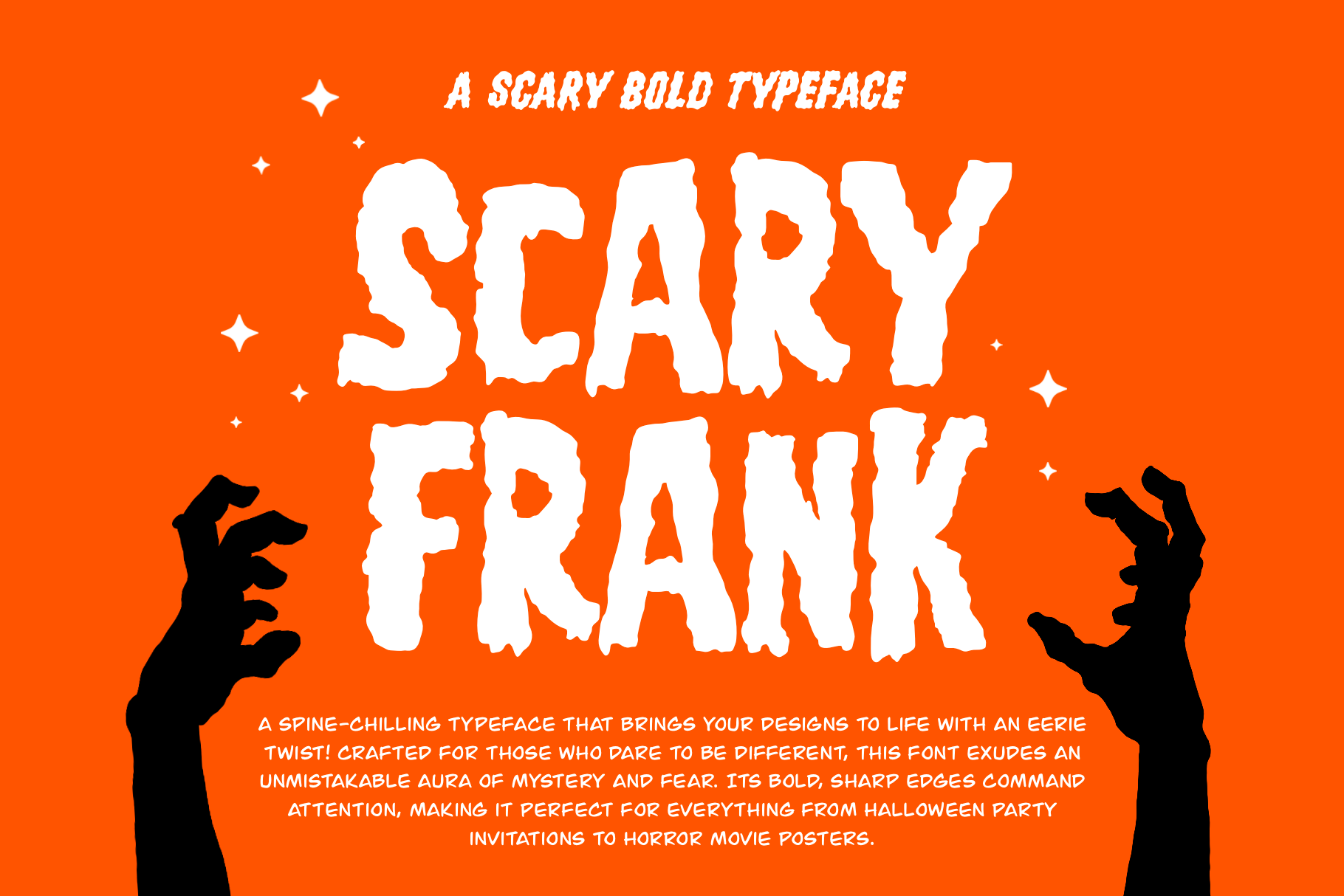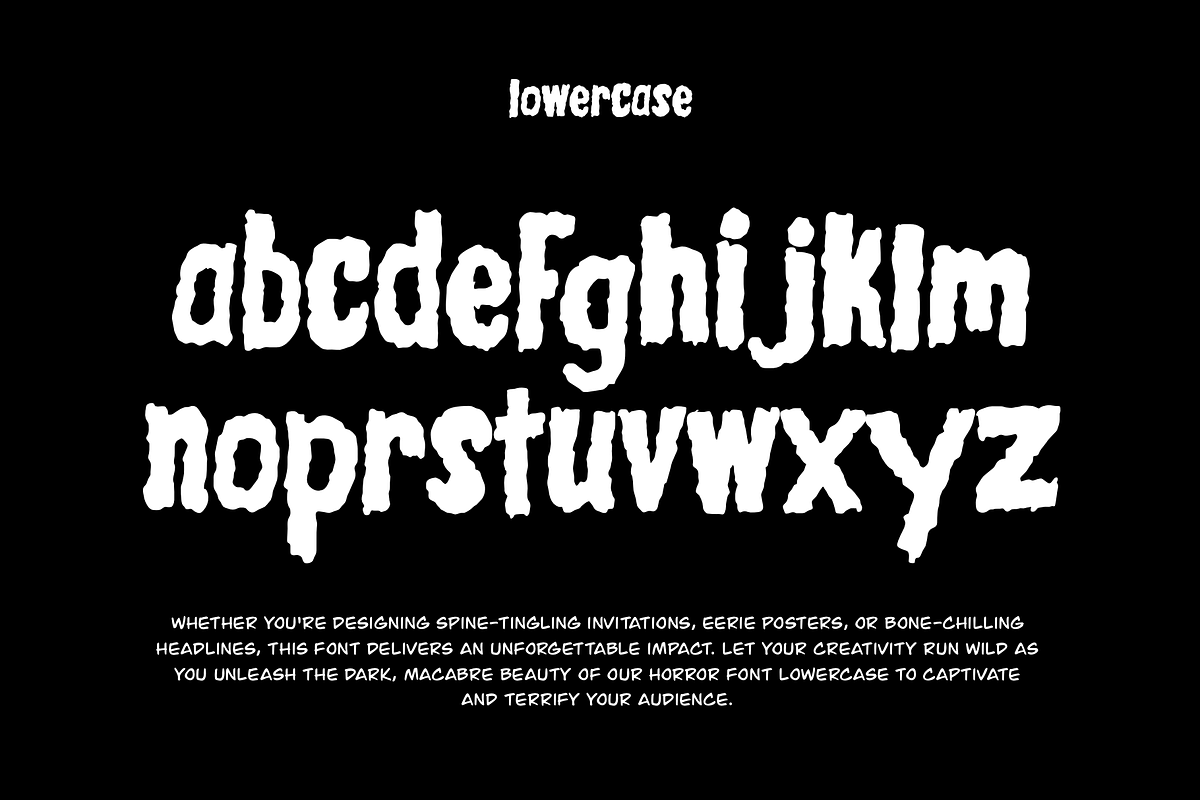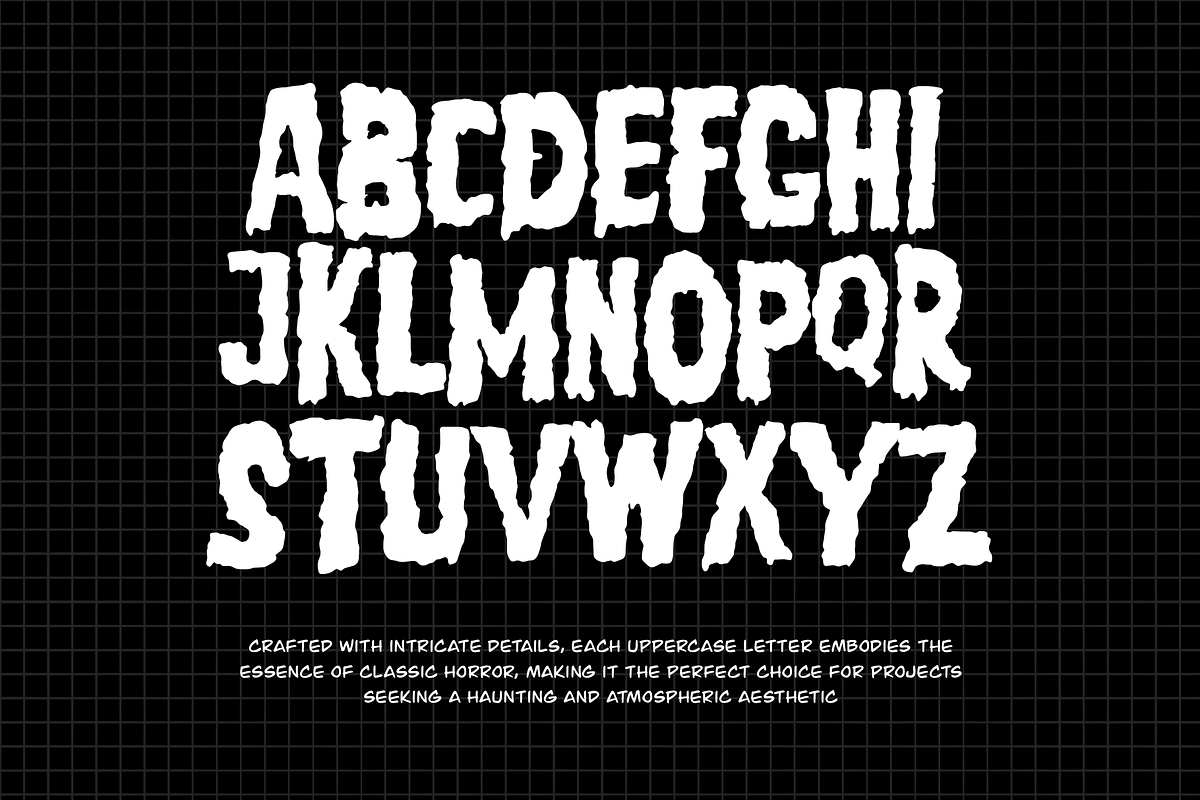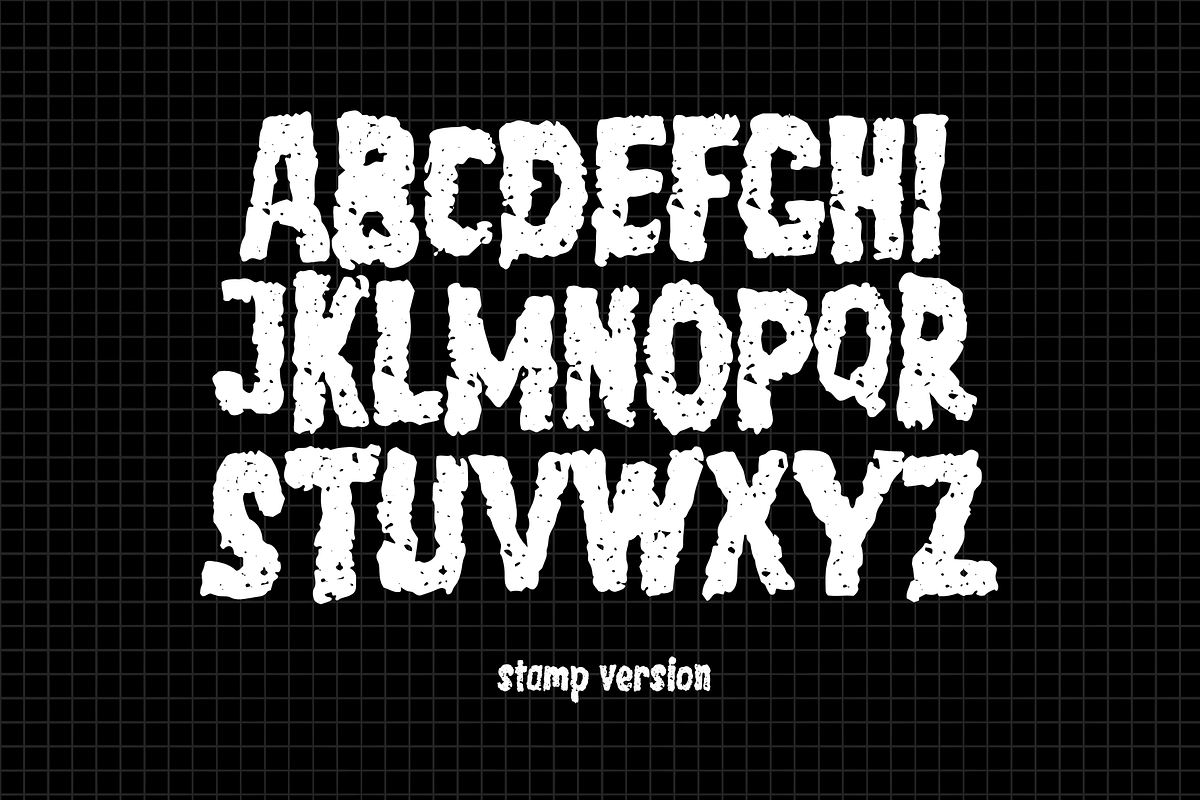
Scary Frank Font - Horror Font
“Scary Frank” is a captivating horror font style that creates a frightening atmosphere, making it an excellent choice for projects requiring suspense and horror. This typeface available in SVG format, compatible with advanced tools such as Cricut and Glowforge, and for use in Procreate. The font's boldness improves readability while creating a creepy appearance, making “Scary Frank” great for horror movie posters, Halloween-themed graphics, or any creative endeavor to inspire a feeling of the macabre.